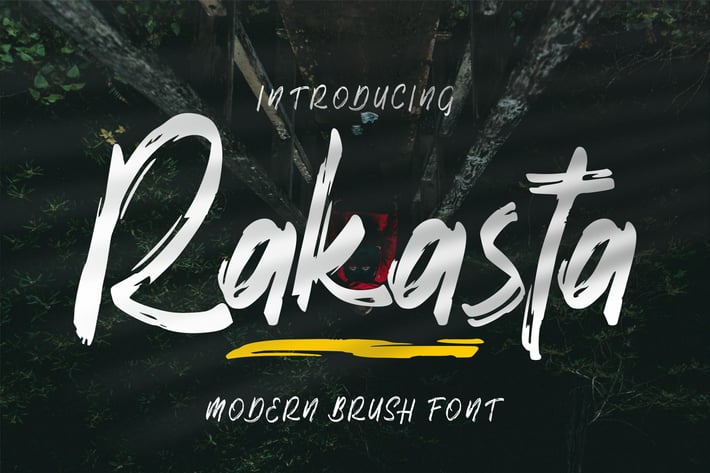
Rakasta | Modern Brush Font
Rakasta | Modern Brush Font with a calligraphy style, So beautiful on invitation like greeting cards, branding materials, business cards, quotes, posters, and more!